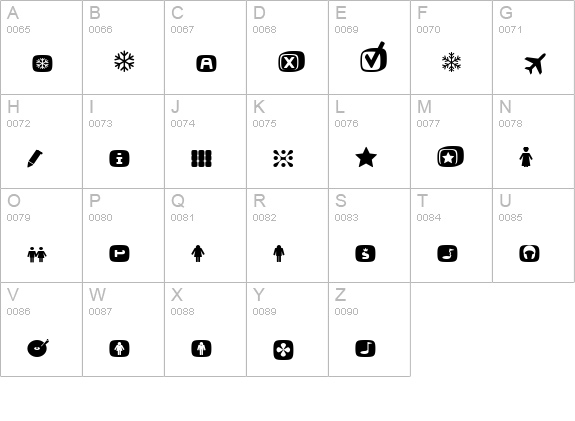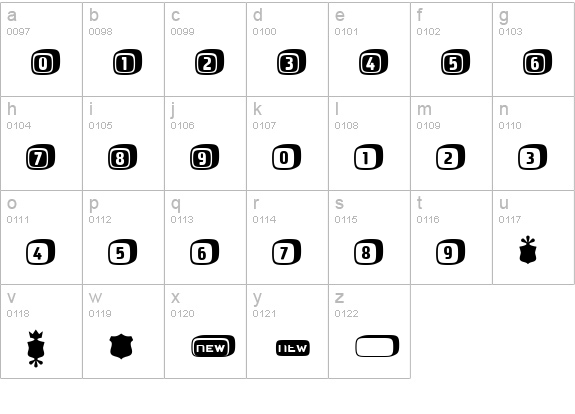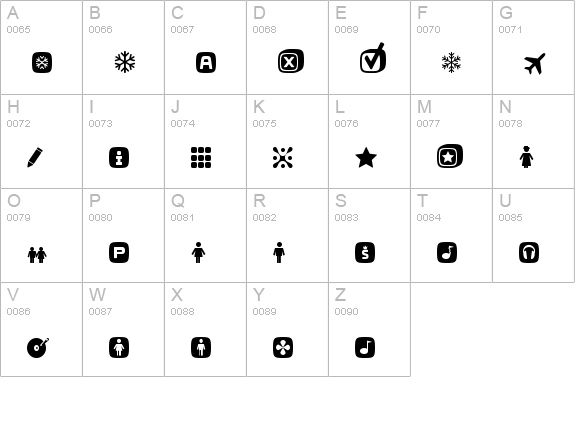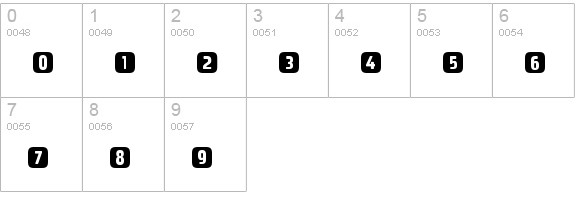
Mayo-DingbatsTwo Font Details
Mayo-DingbatsTwo is a whimsical and playful font that is perfect for adding a touch of fun to your design projects. This font features a collection of charming dingbats that can be used to enhance your designs and make them stand out. Whether you're creating invitations, posters, or social media graphics, Mayo-DingbatsTwo is sure to add a unique and creative flair. The best part about Mayo-DingbatsTwo is that it is completely free to download at FontsMarket.com. This means that you can easily access this delightful font and start using it in your projects right away. With Mayo-DingbatsTwo, you can let your creativity shine without any cost or restrictions. Don't miss out on this fantastic opportunity to elevate your designs with this charming and free font!